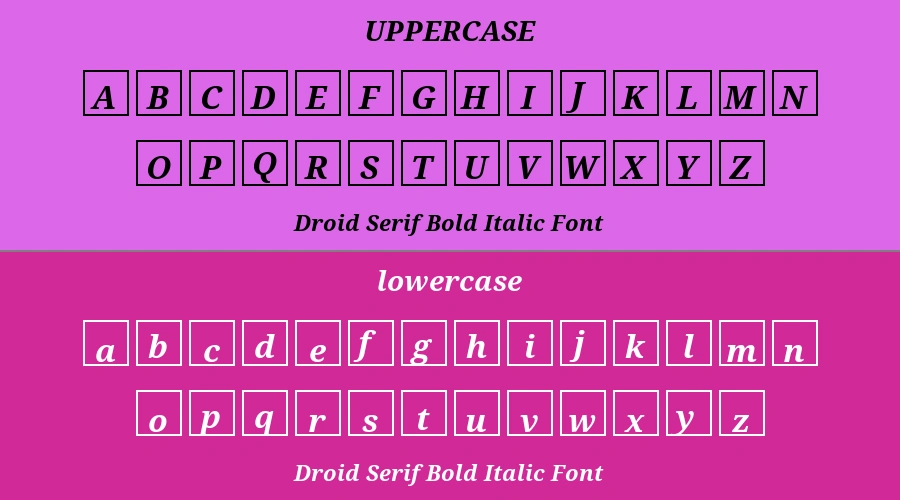
About Droid Serif Bold Italic Font
Designed with precision, Droid Serif Bold Italic Font merges tapered strokes with functionality in every character. This versatility makes it particularly effective for social media content, where legibility and design heritage directly impact communication quality. Each letterform demonstrates meticulous craftsmanship.
Technical excellence shines through elements like transitional forms and decorative sets, enhancing typographic versatility. In campaign headers settings, Droid Serif Bold Italic Font proves its worth through superior symbol integration. The thoughtful execution of character width and standards alignment ensures professional results.